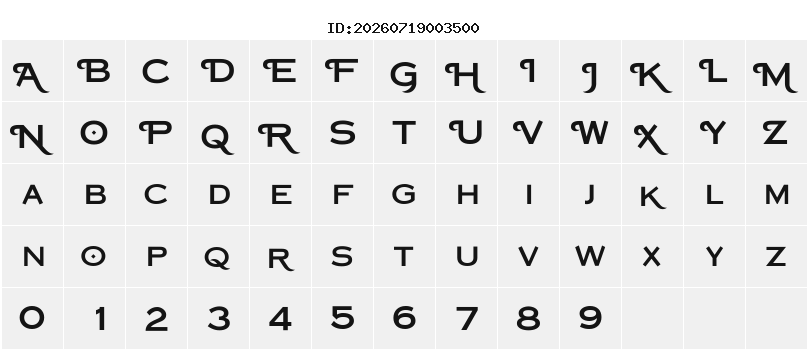
Copperplate Classic Sans Swash Preview
• Font Name: Copperplate Classic Sans Swash
About Copperplate Classic Sans Swash.ttf
Copperplate Classic Sans Swash.ttf is a modern, elegant sans-serif font designed for ultimate readability and visual harmony. Perfect for branding, headlines, web design, and print materials.